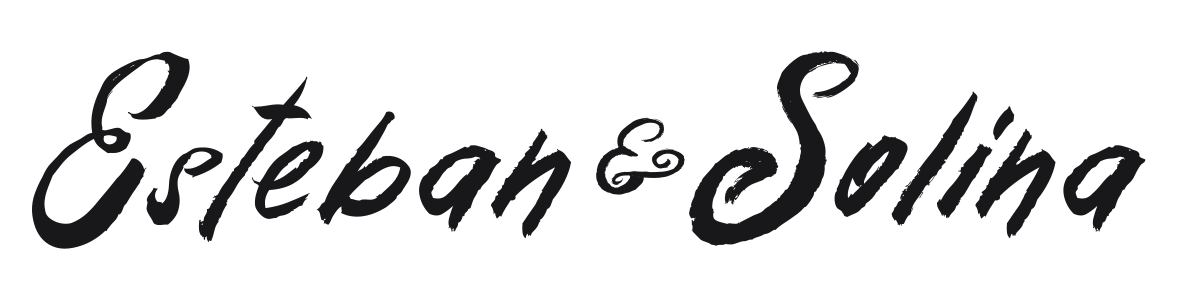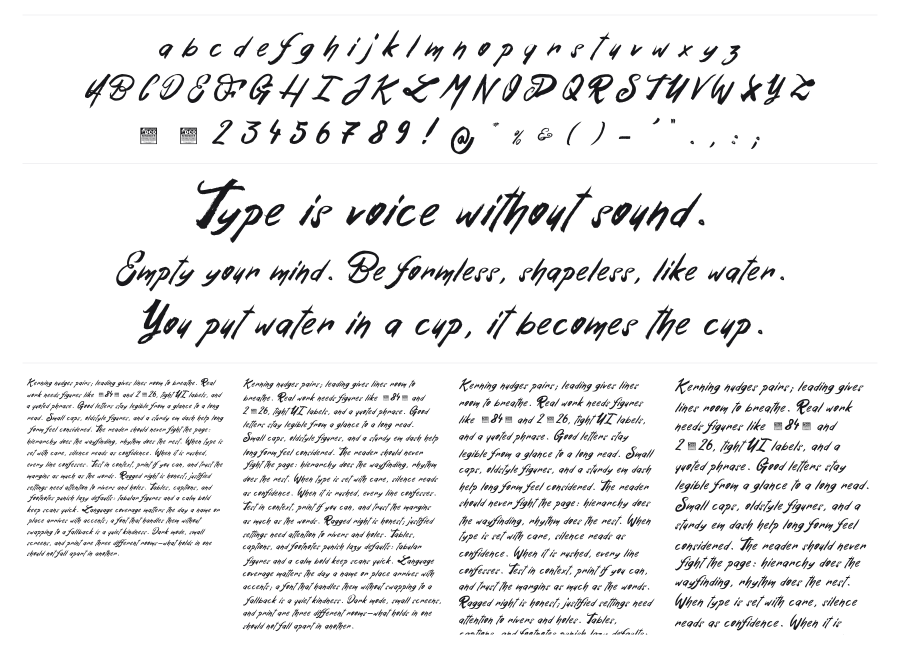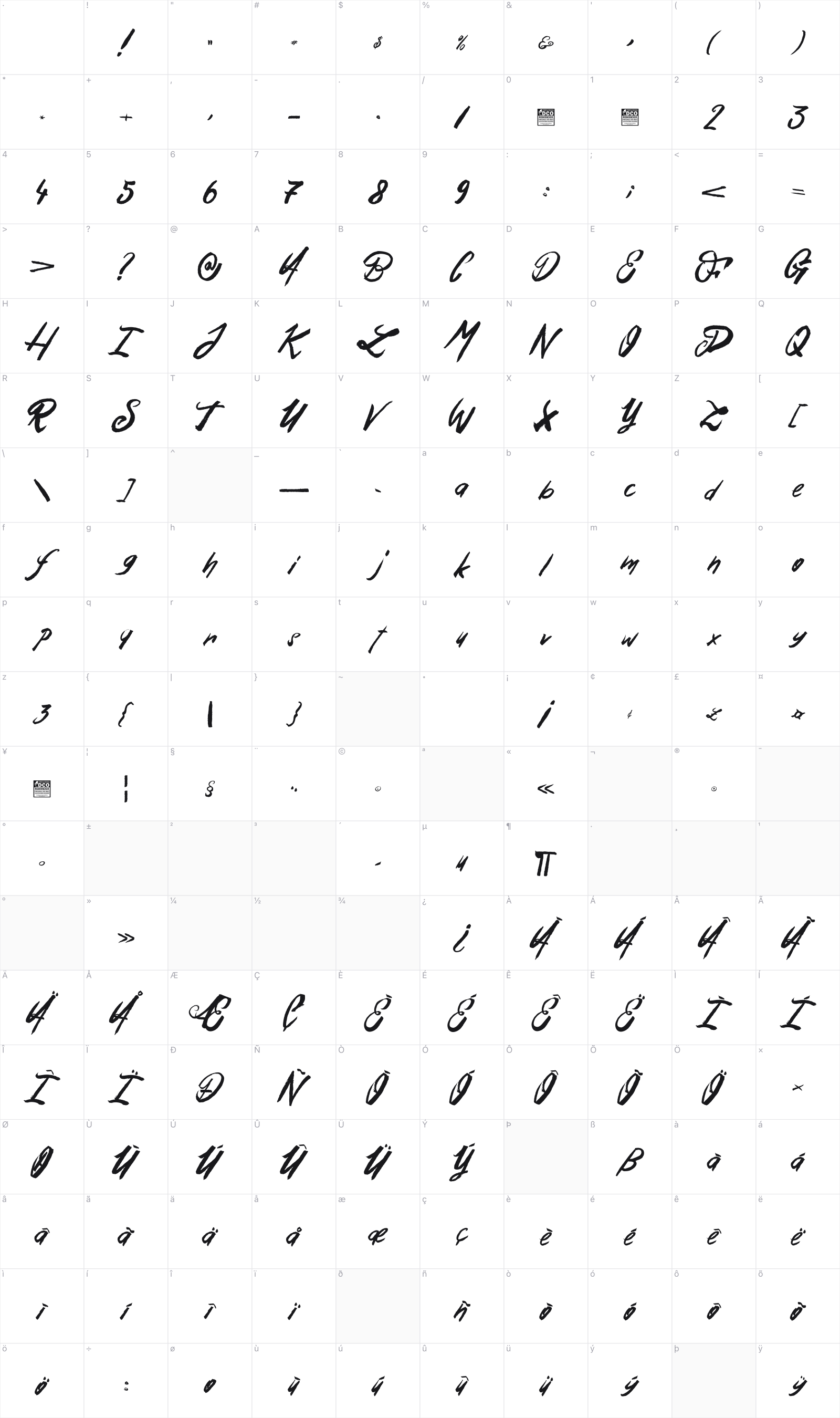
Esteban&Solina
Esteban & Solina is a wild, ink-driven brush script with the feel of calligraphy written at speed. Bristle textures, uneven pressure, and a sharp forward lean give it a raw, almost chaotic energy that feels genuinely handmade rather than digitally polished. It commands attention on posters, album covers, and anywhere that needs a shot of gritty authenticity.